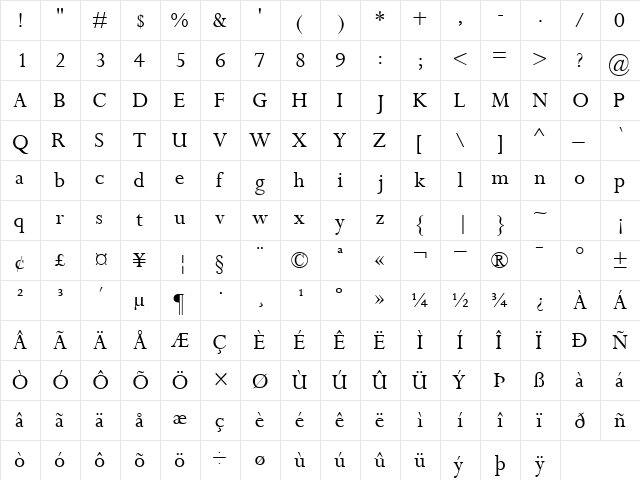
CompleatSSK Regular
Design Context for CompleatSSK Typeface
CompleatSSK takes a measured approach to typography — its balanced proportions and neutral character make it a reliable workhorse for both digital and print work.